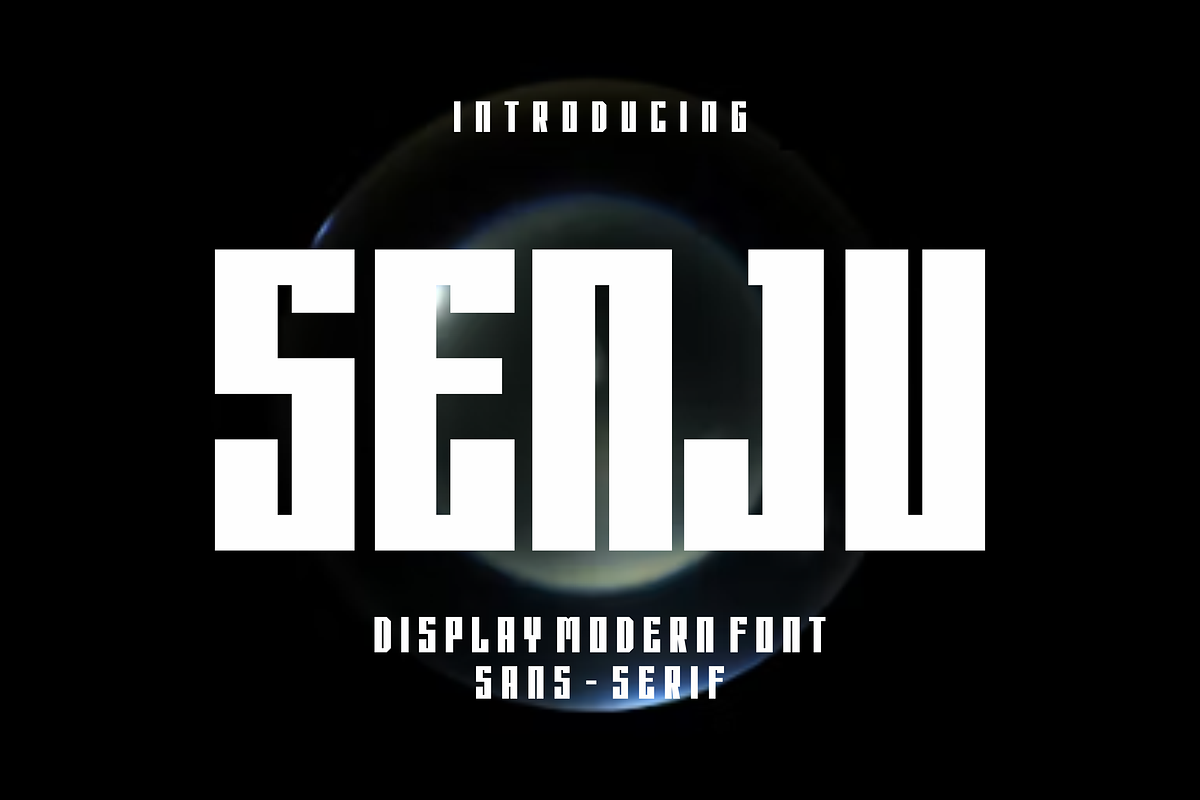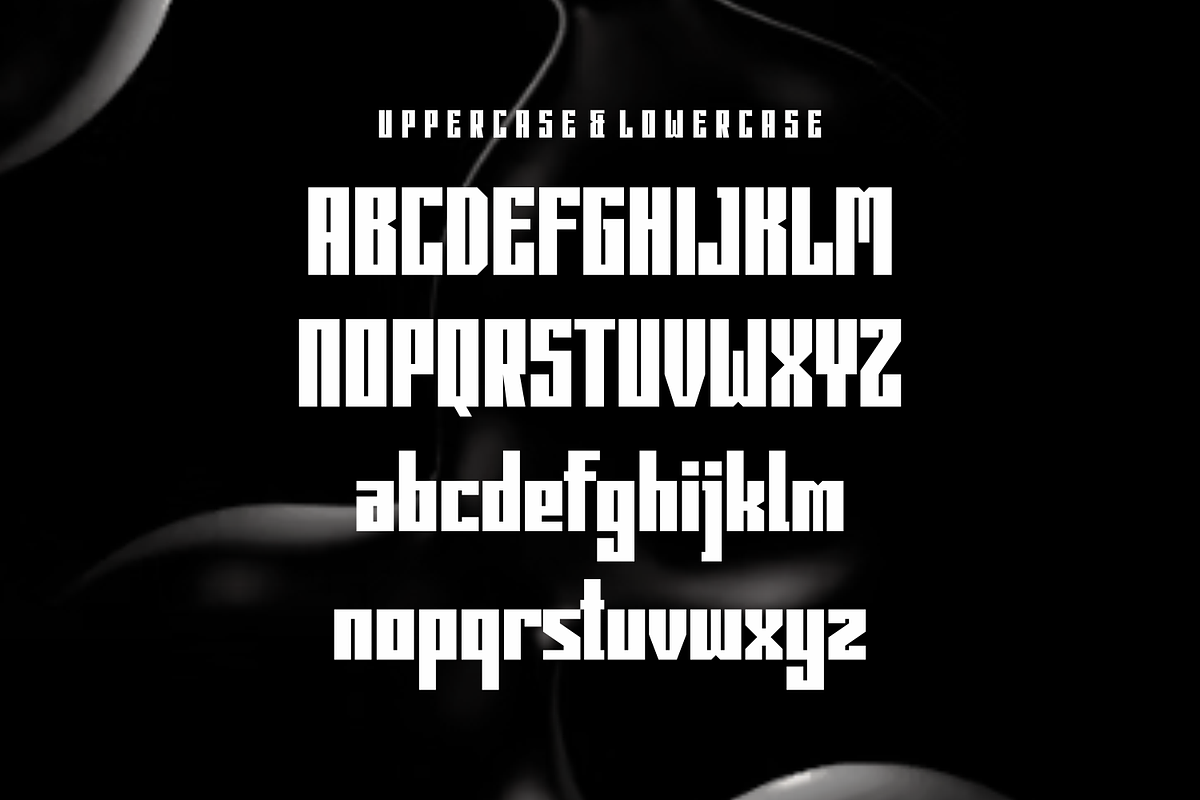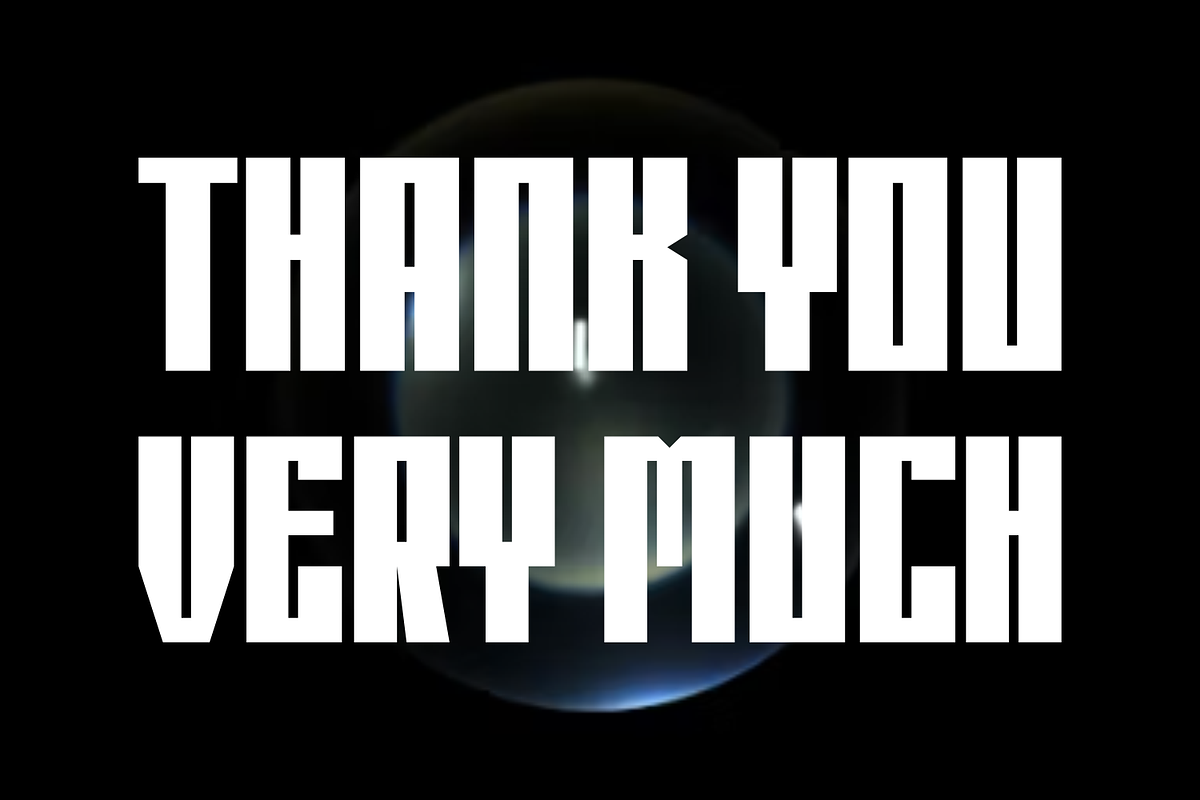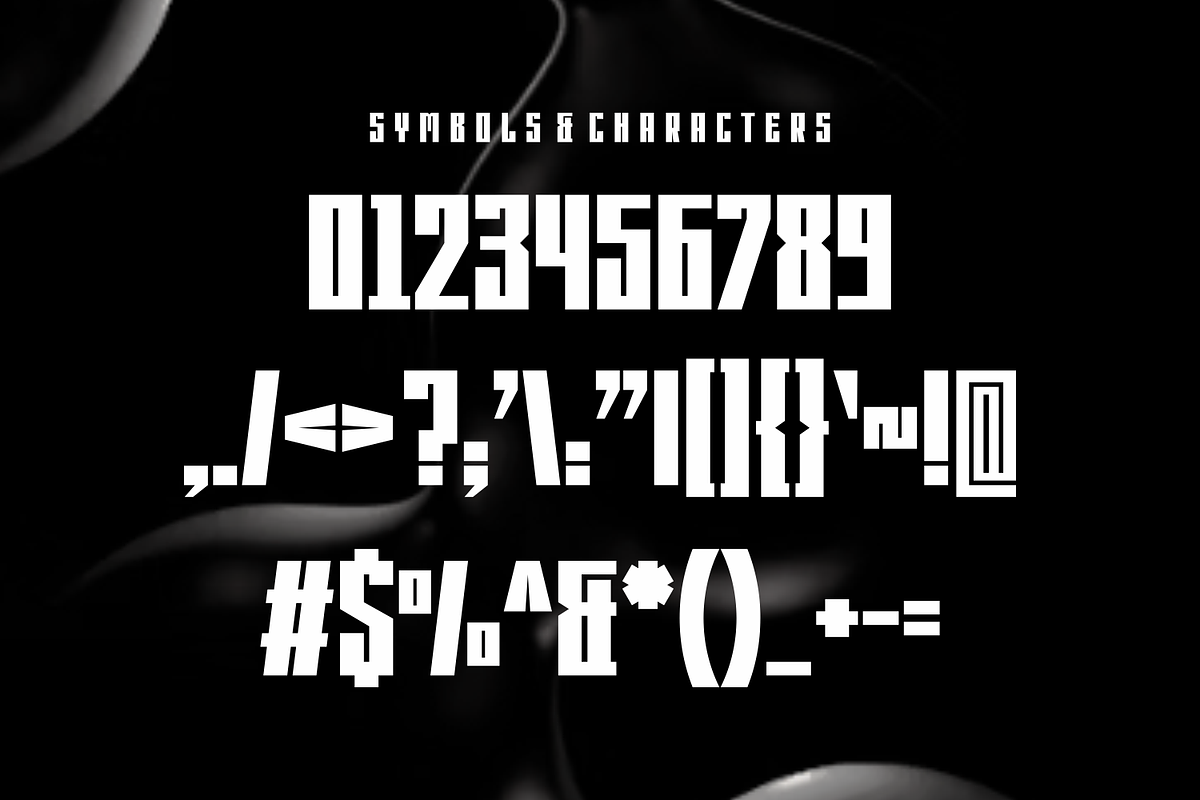
Senju - Bold Display Font
Senju - Bold Display Font Perfectly suited on print/screen. it’s perfect for Branding, name card, poster, logo, magazine, cover, banner, t-shirt and headers, or even large-scale artwork.